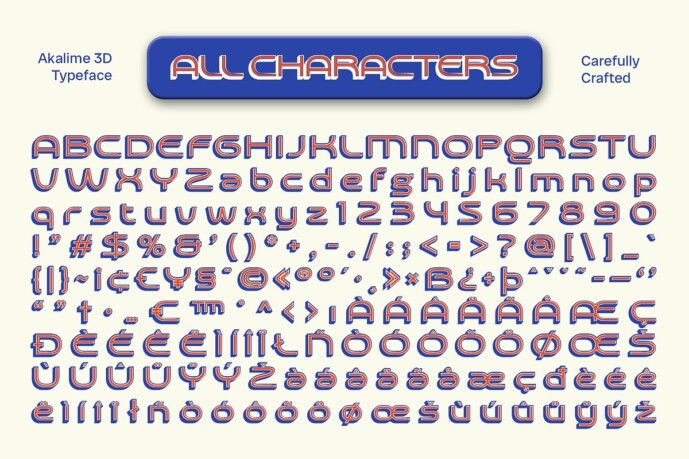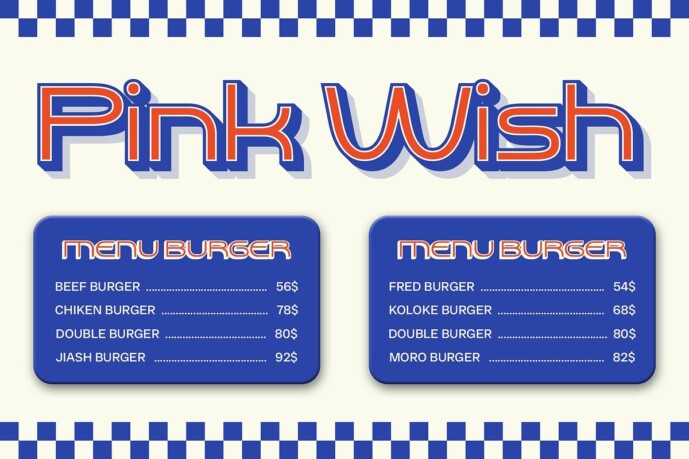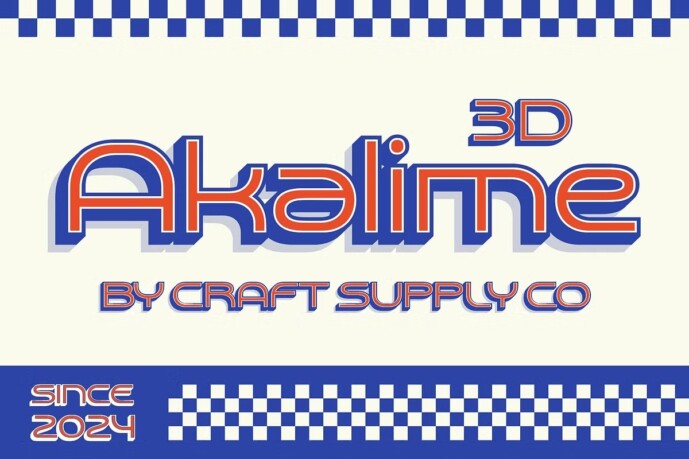
Akalime 3D Font
Akalime 3D Font is a cutting-edge sans serif font that brings geometric shapes to life with its stunning 3D effect. Perfect for modern designs requiring a dynamic and innovative look, Akalime 3D adds depth and visual interest to logos, headlines, and more.
Akalime 3D reimagines the traditional sans serif font by infusing it with precise geometry and a captivating three-dimensional illusion. This unique combination creates a bold and contemporary appearance, making Akalime 3D an ideal choice for designs that aim to stand out.
From futuristic posters to sleek website headers, this font 3D is a versatile font that can elevate any design. Its geometric style and 3D effect make it suitable for a wide range of applications, including advertising, branding, and editorial design, where a modern and dynamic look is desired.
Despite its complex appearance, this font 3D is user-friendly and adaptable. It works seamlessly in both large and small sizes, ensuring readability and impact across different design elements. Whether used for headlines or body text, this font 3D adds a contemporary flair to any project, making it a valuable asset for designers seeking a modern aesthetic.